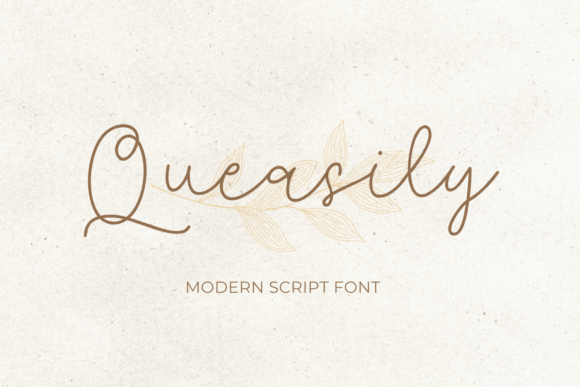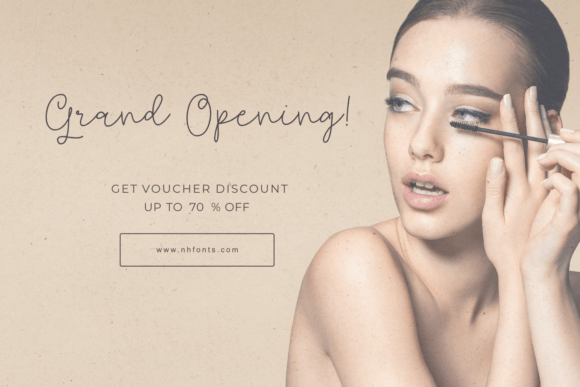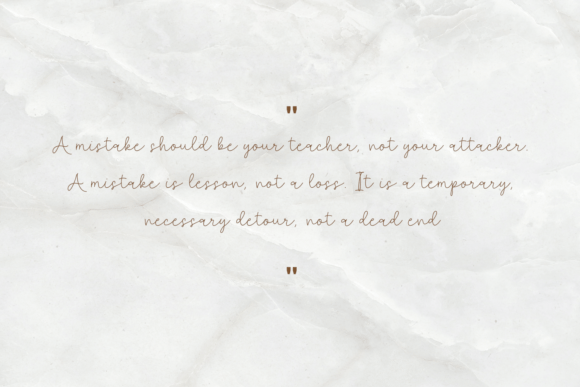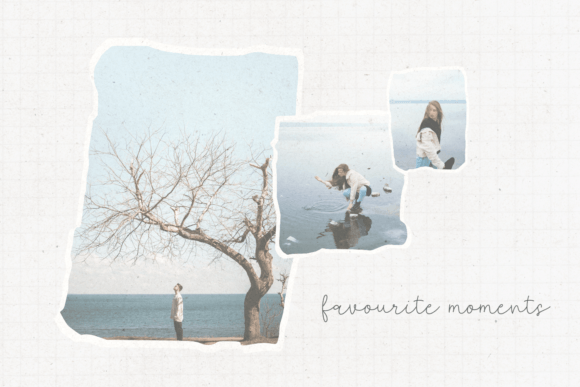
Queasily Font: Elegant Script for Wedding & Branding! Typography Design
About the Queasily Font
Unleash your creativity with Queasily Font, a versatile font perfect for a wide range of applications. Queasily is a superb single line font that will make your work stand out through its elegant and simple lines. It is perfect for product packaging, branding project, magazine covers, social media, wedding, or just used to express words above the background.
Queasily’s elegant simplicity makes it ideal for headlines, short text blocks on posters, and branding applications where a touch of sophistication is desired. It excels in logo design and short impactful statements, lending itself well to minimalist aesthetics. However, its thin strokes and single weight limit its use in body text or long paragraphs; readability suffers at smaller sizes.
This font’s personality is refined and modern. It works particularly well for brands projecting luxury, simplicity, or a clean, contemporary image. Consider pairings with geometric sans-serifs like Futura or a neutral serif like Garamond for a balanced and sophisticated look.
For a more playful contrast, a rounded sans-serif like Gill Sans could be used. Avoid pairing it with overly ornate scripts or excessively bold fonts, which would clash with its delicate nature.
Queasily Font Usage Examples
Queasily Font Example